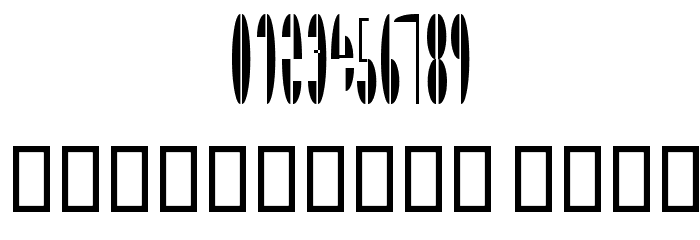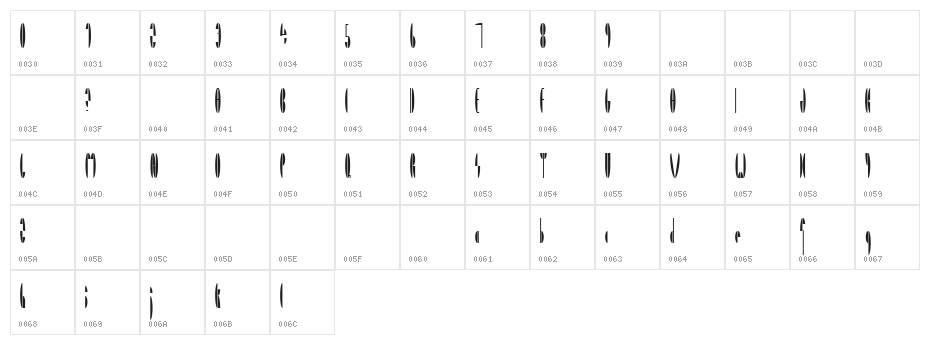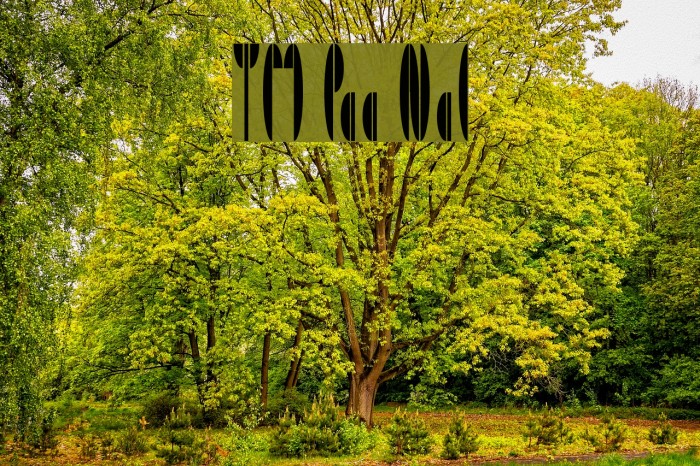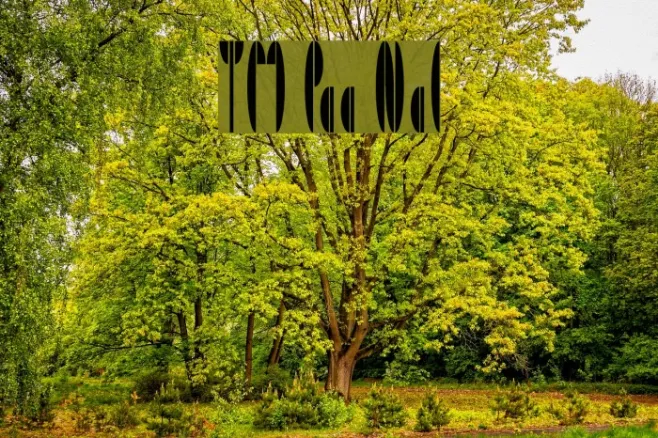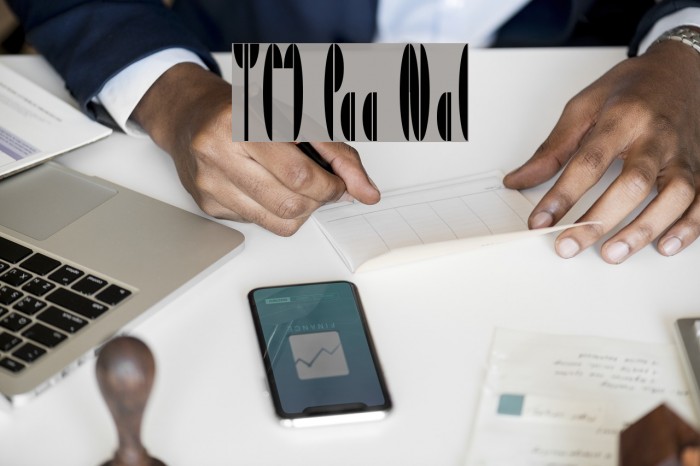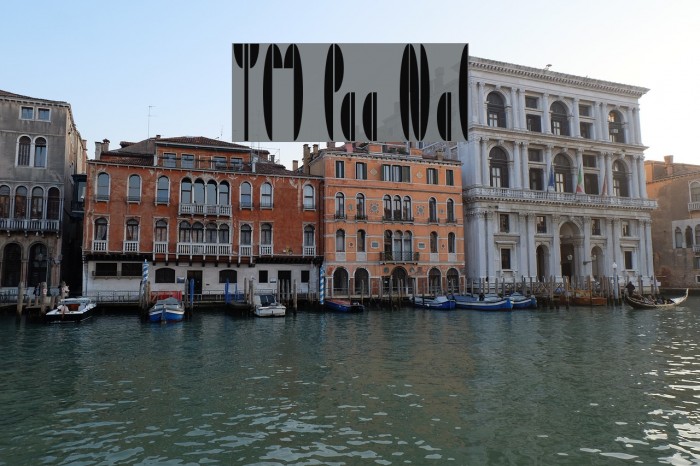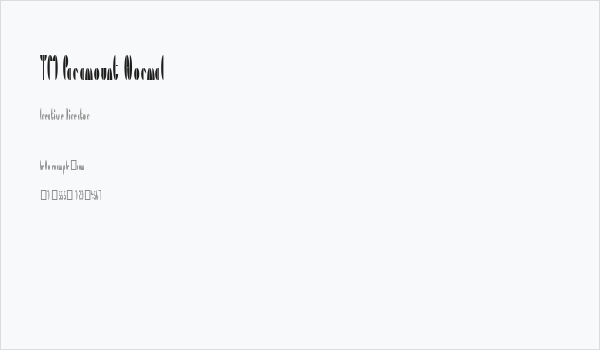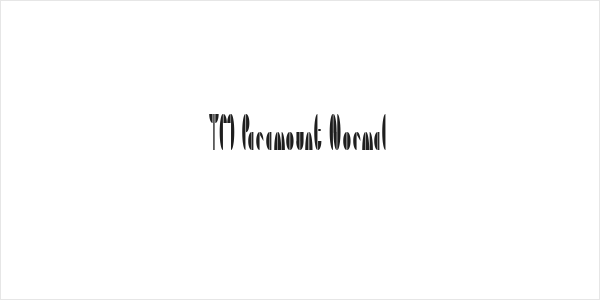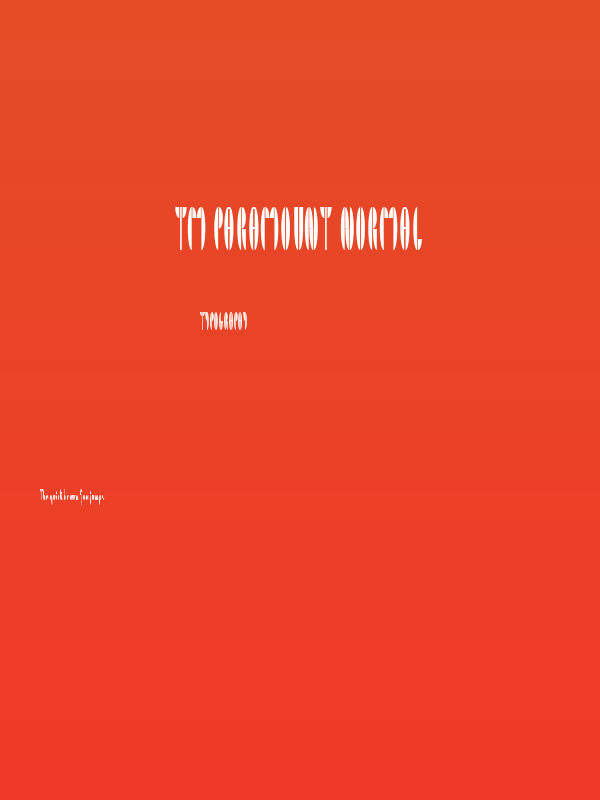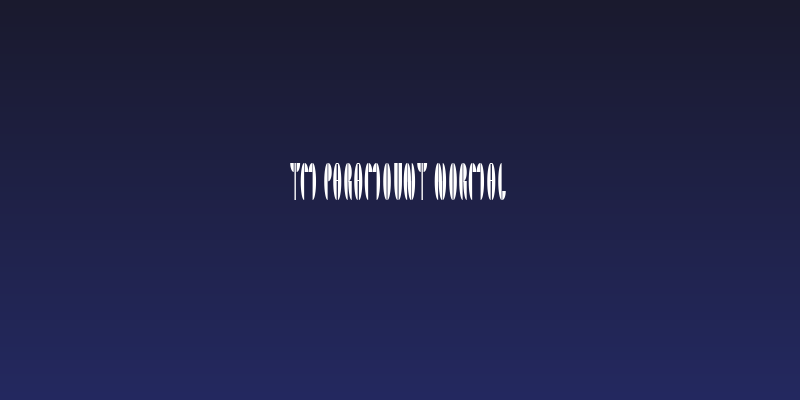
TM Paramount Normal Font
TM Paramount Normal Description
This font features a highly stylized, decorative design with elongated and narrow letterforms. The characters have a unique, modern flair, characterized by their vertical emphasis and minimalistic curves. The uppercase letters are particularly tall and slender, while the lowercase letters maintain a consistent style, offering a cohesive look. The numbers follow the same aesthetic, providing a uniform appearance across all characters. This font's distinct style makes it ideal for creative and artistic projects where a bold statement is desired.
| Proposed Projects | Ideal for posters, album covers, branding, and any project requiring a bold, artistic touch. |